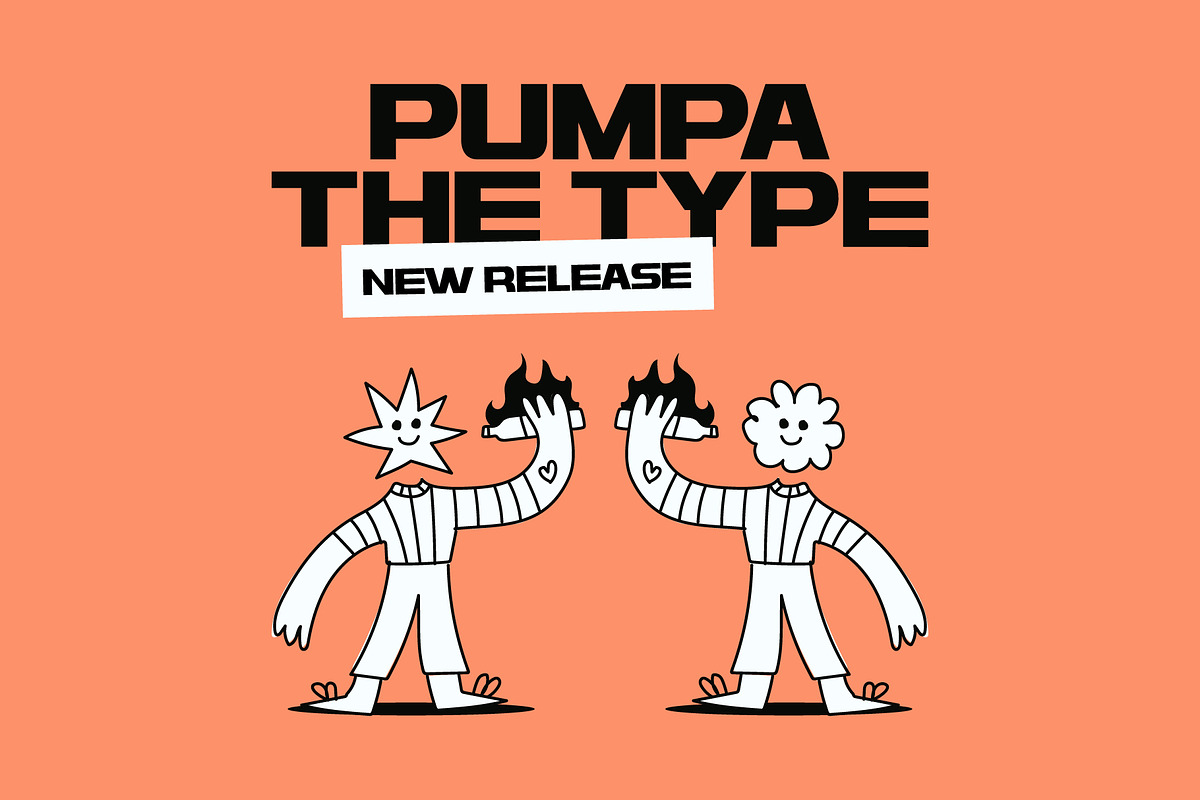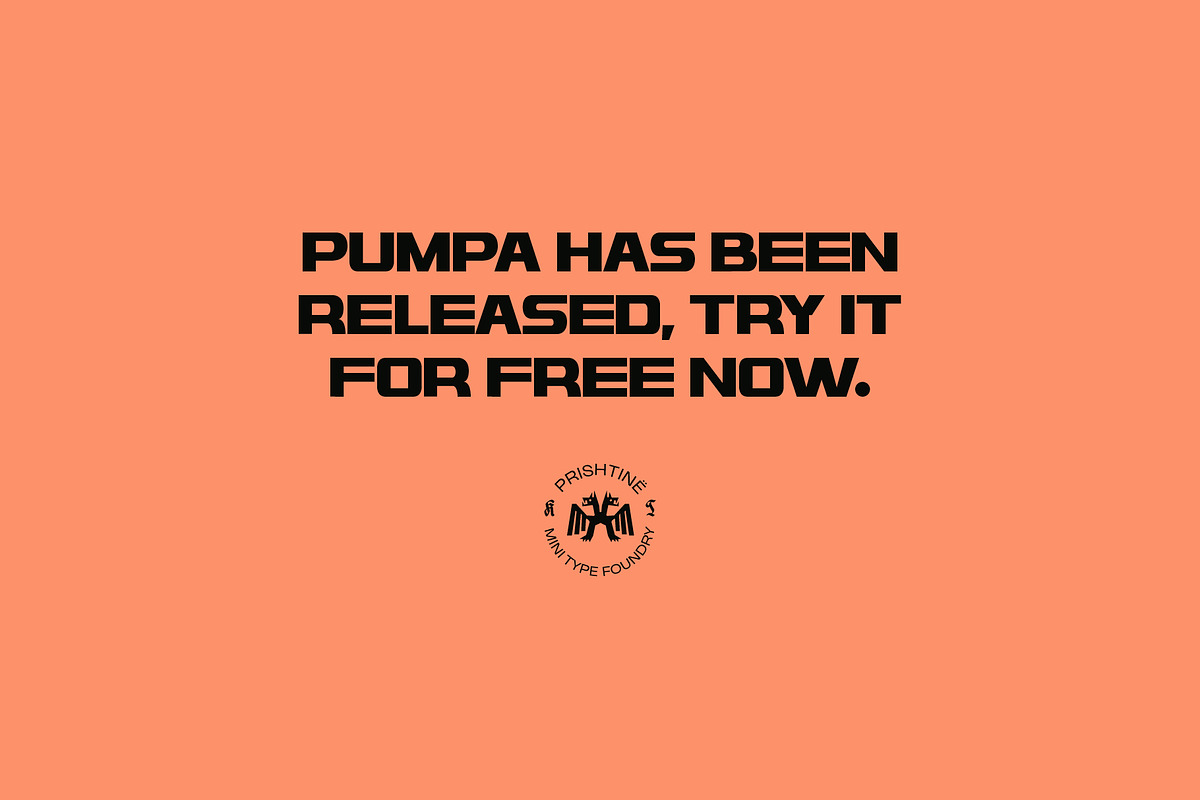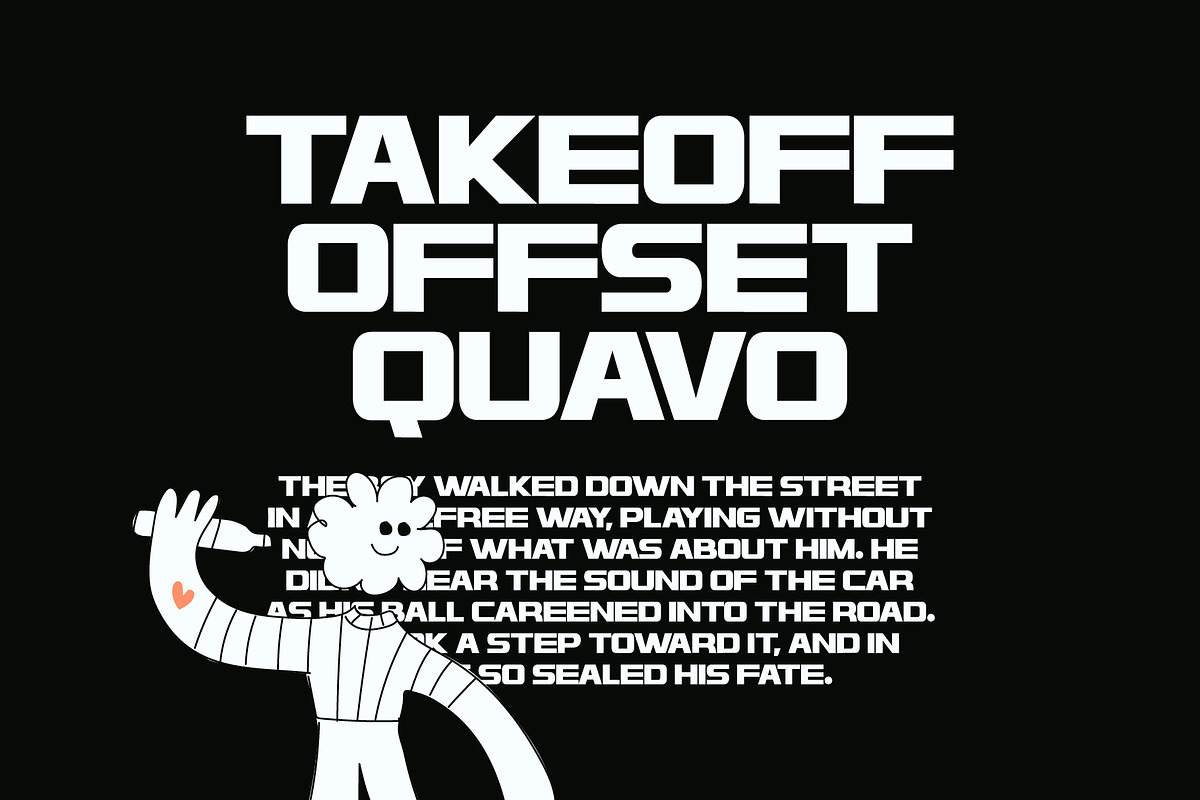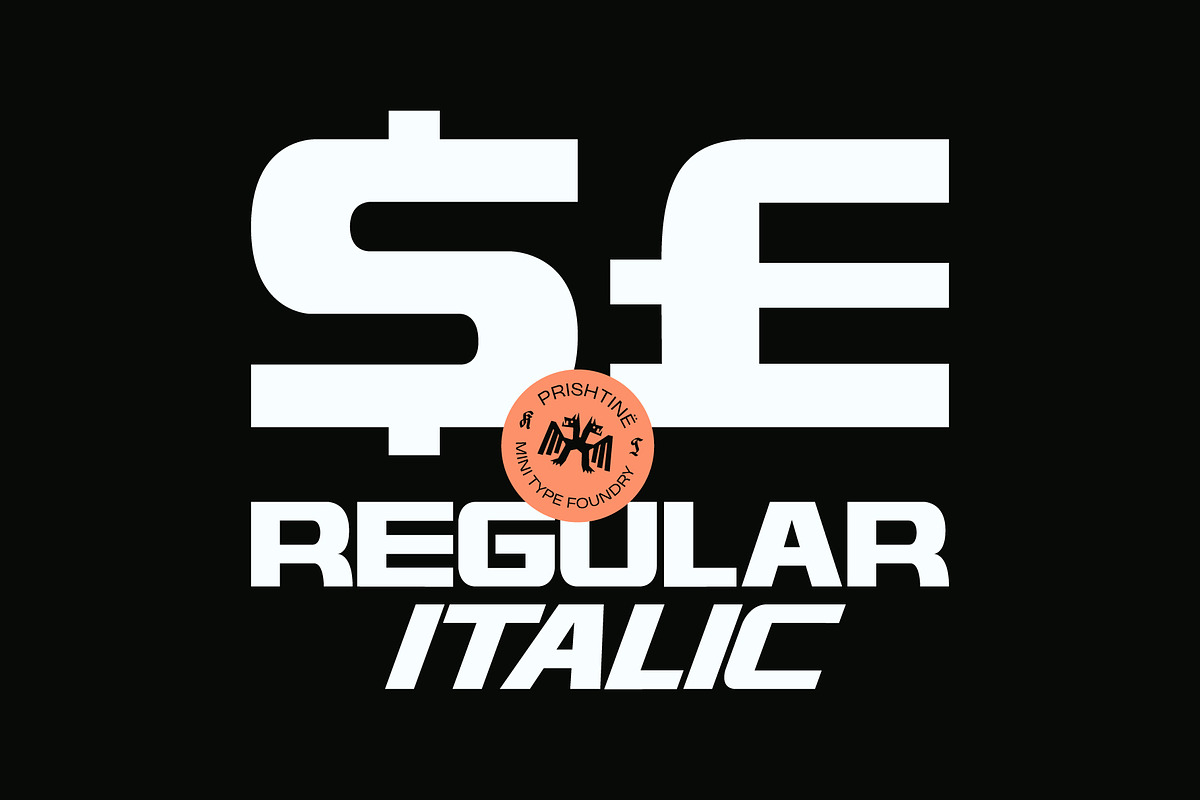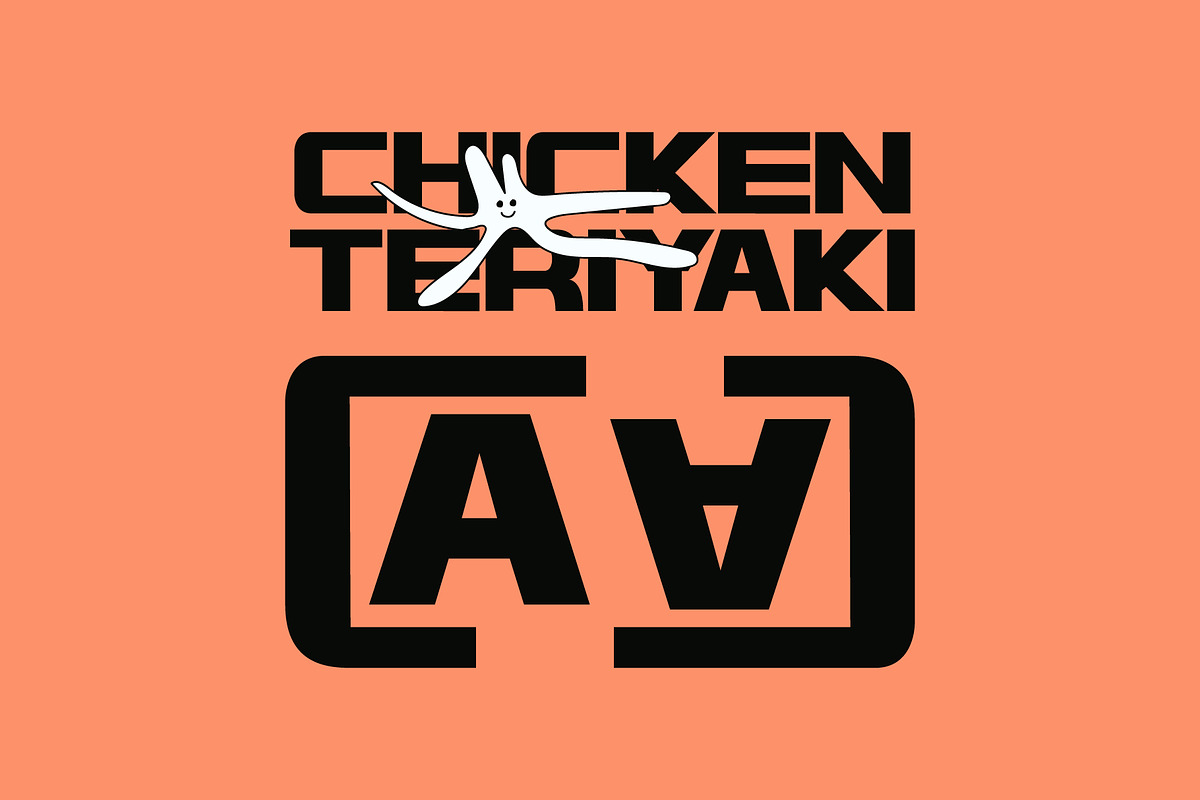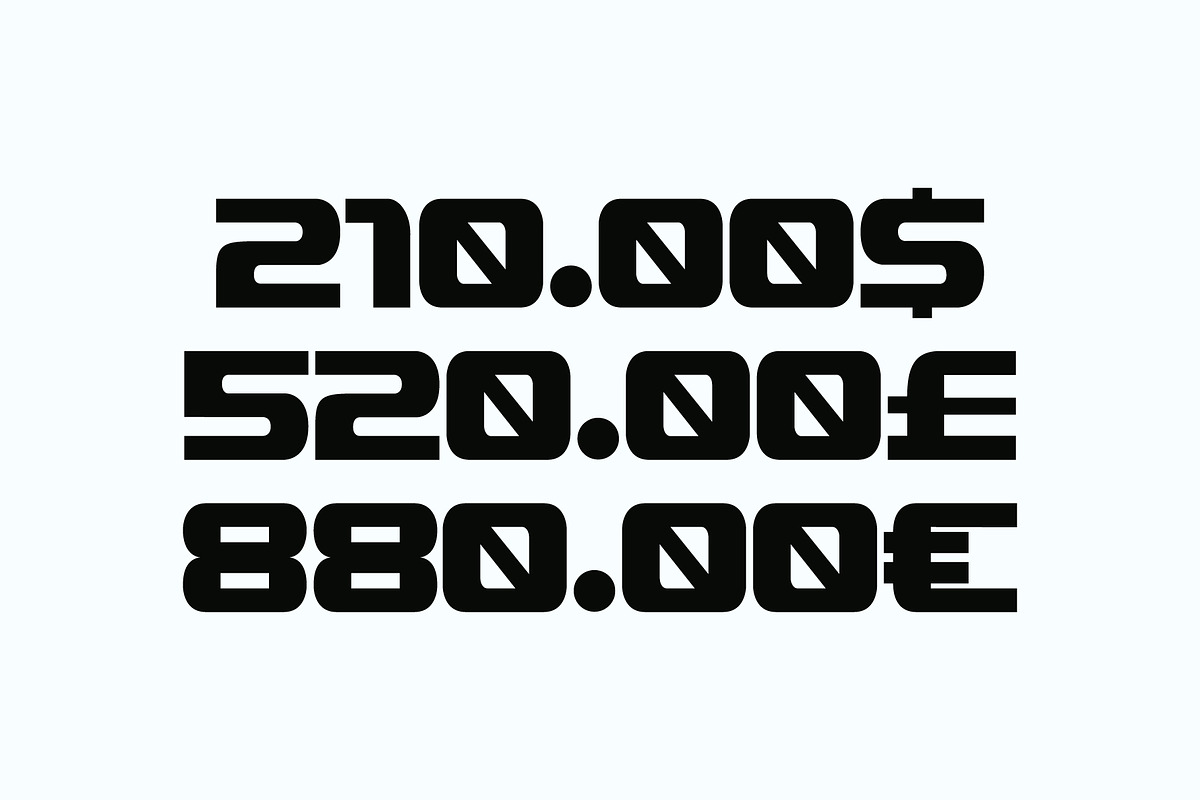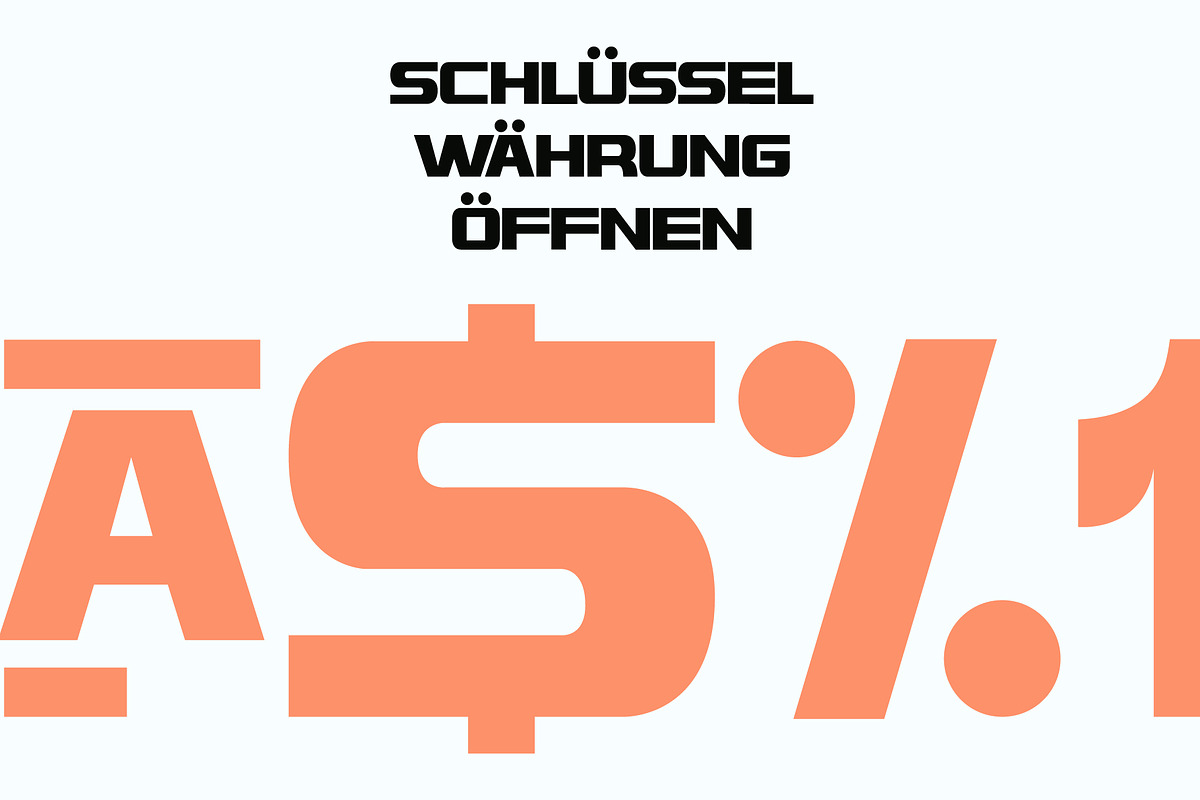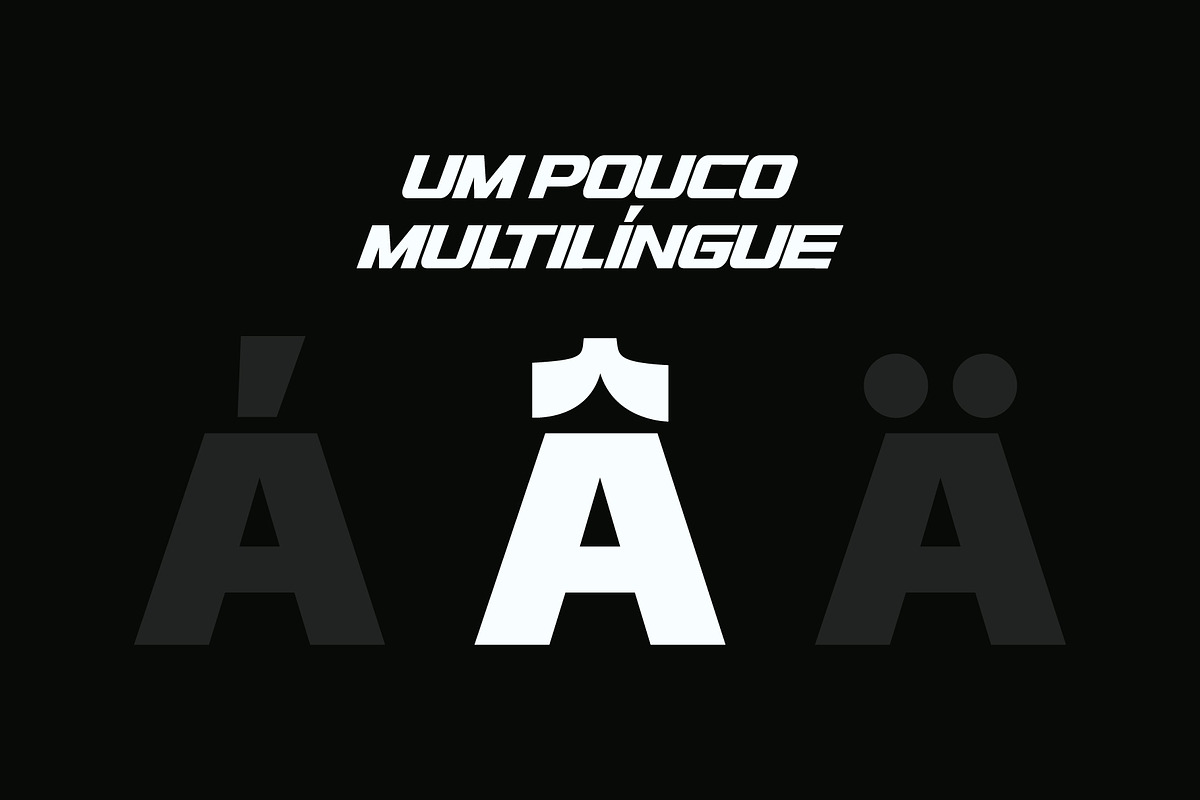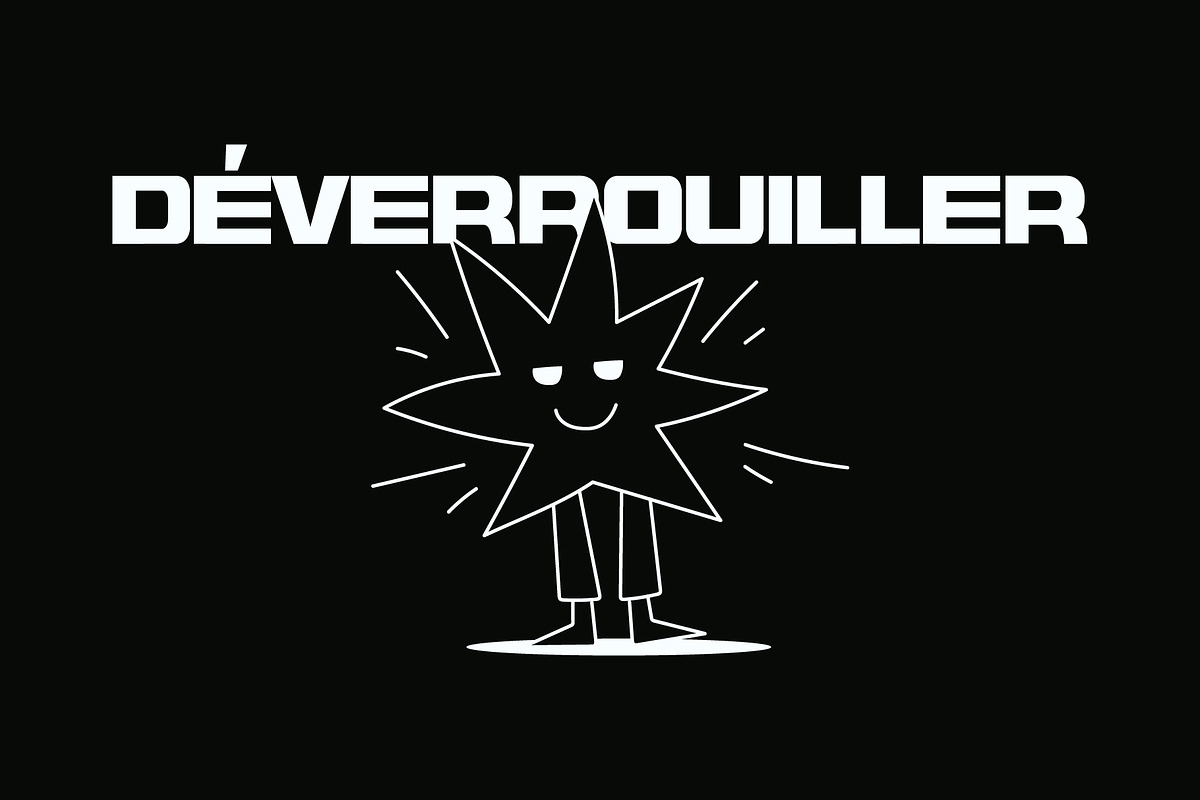
Pumpa - Sans Type
Greetings all! This is the latest type released, Pumpa.
The type is a bold, strong and fast paced piece. It was originally inspired by old Gas Station writing and some old Mechanic signs found around the nearby towns. Currently features only 1 weight and 2 styles, Regular & Italic. Supports some Western European languages.